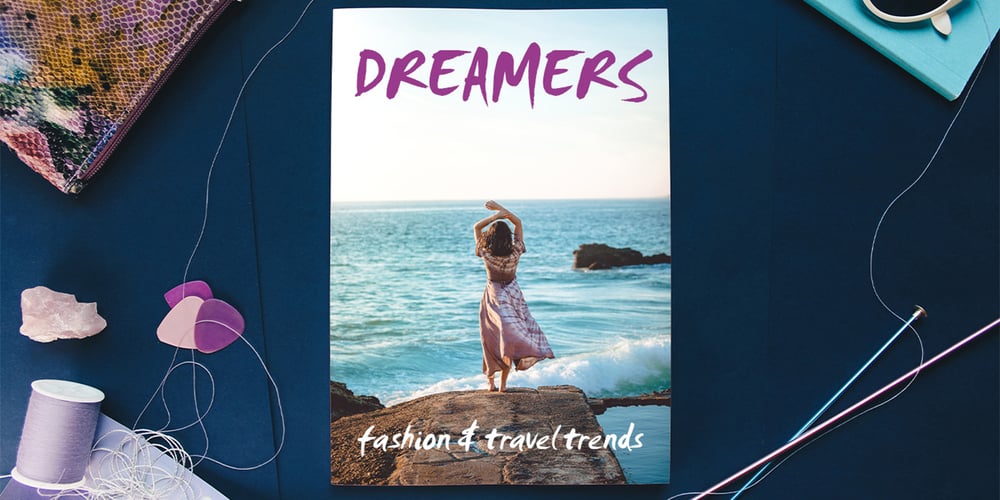
Smudger Font Family was designed by Andrew Smith and published by ITC. Smudger contains 1 styles and family package options. Smudger, from designer Andrew Smith, is oriented toward a young generation who does not want to mind the rules. The font invites unconventional and playful use. The figures seem to be almost coincidentally shaped. Letters alternate between thin and thick strokes alternate and give the font the smudged look that inspired its name and gives the font its unmistakable character. Smudger is a font that just cannot settle down. It is best used for headlines and short texts in point sizes of 12 or larger.